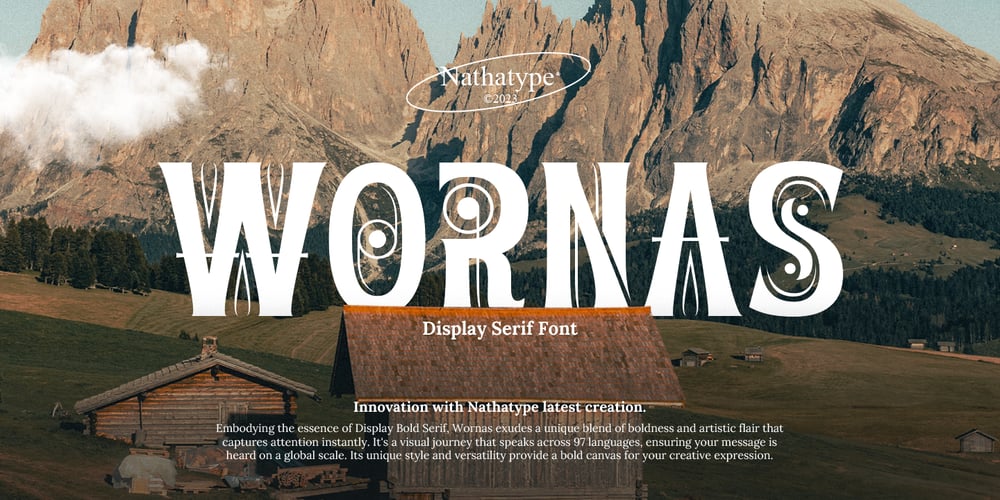
Wornas
Wornas font
Wornas Font Family was designed by Donis Miftahudin and published by Nathatype. Wornas contains 1 styles and family package options. Step into the world of visual grandeur with Wornas, a commanding serif display font that marries bold weight with artistic finesse. The letters are adorned with intricate artistic objects and inline details, transforming each character into a canvas of creativity. These unique style add a visual interest compared to other display fonts. The inline details in this font are a stroke of design genius. Wornas fits in headlines, logos, branding materials, print media, and many more.